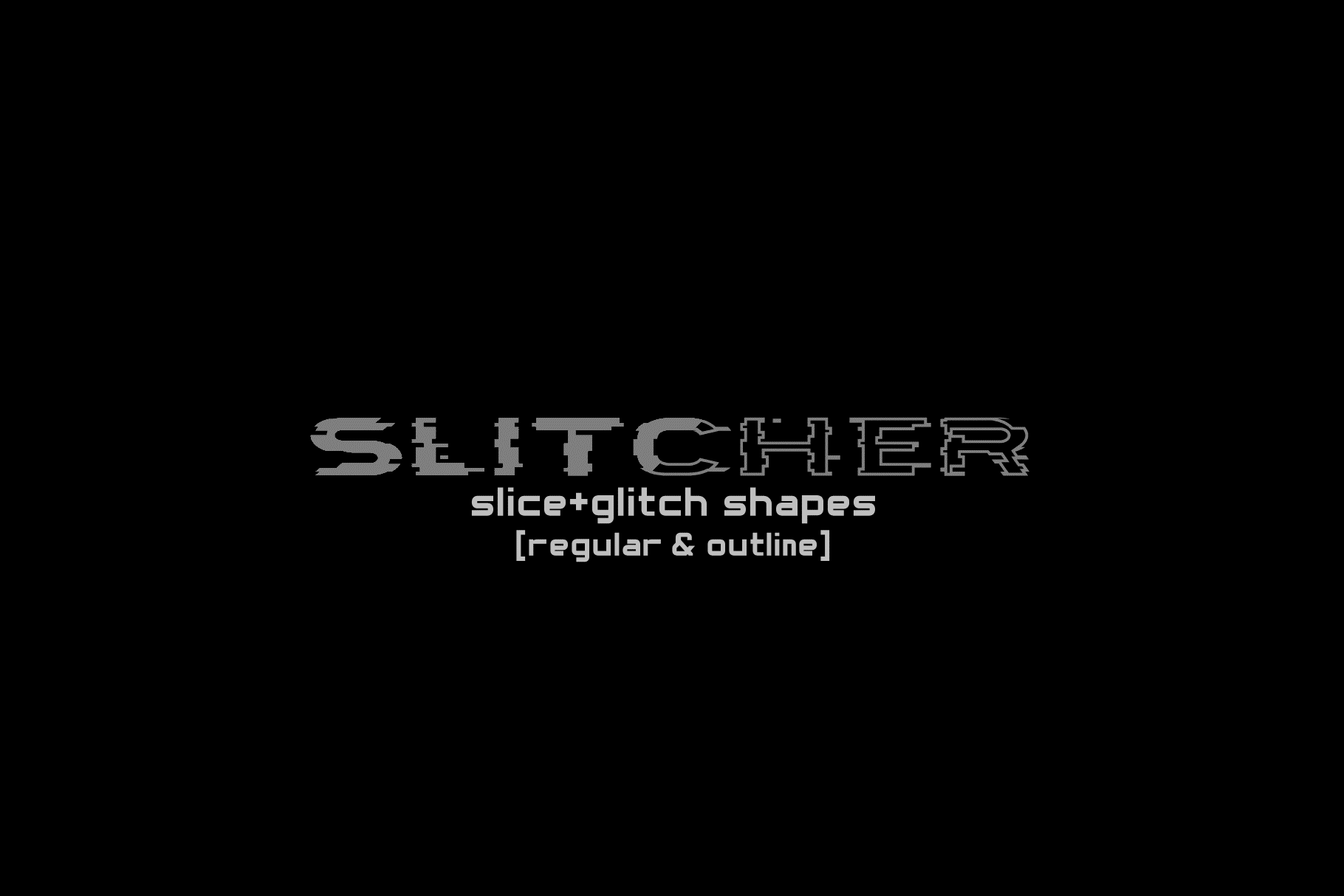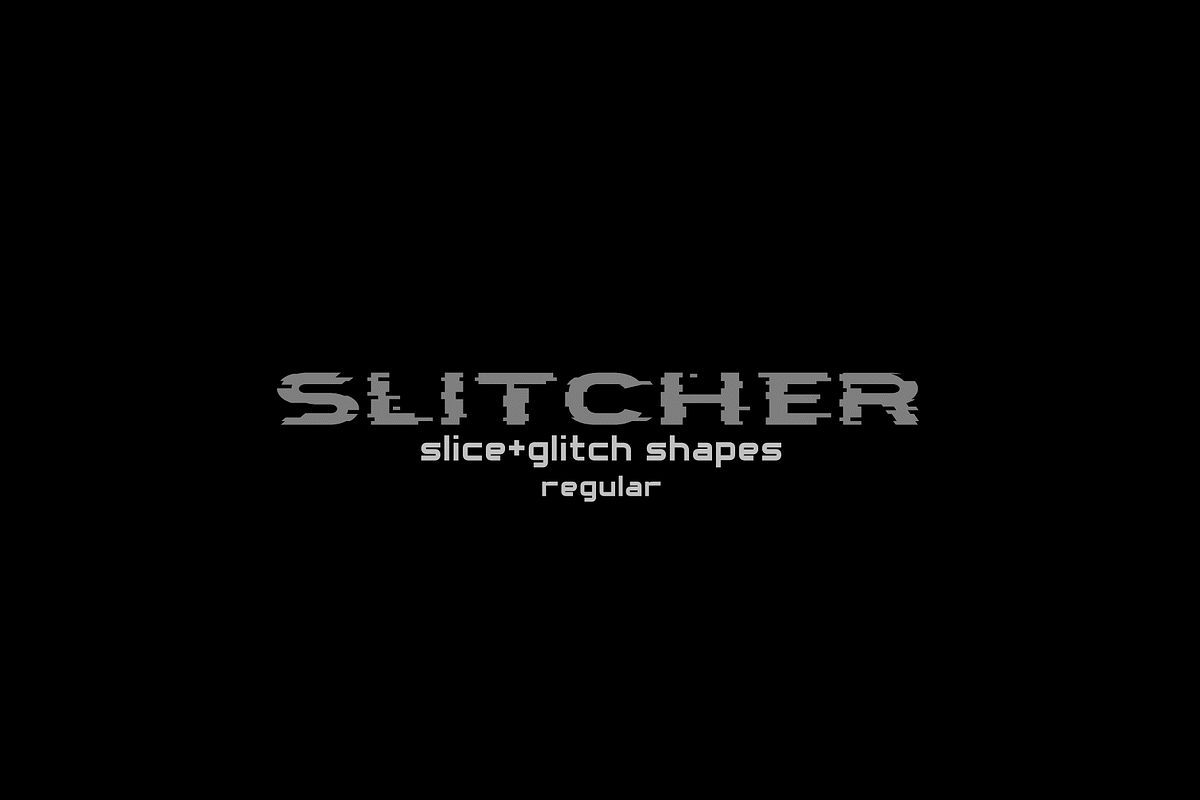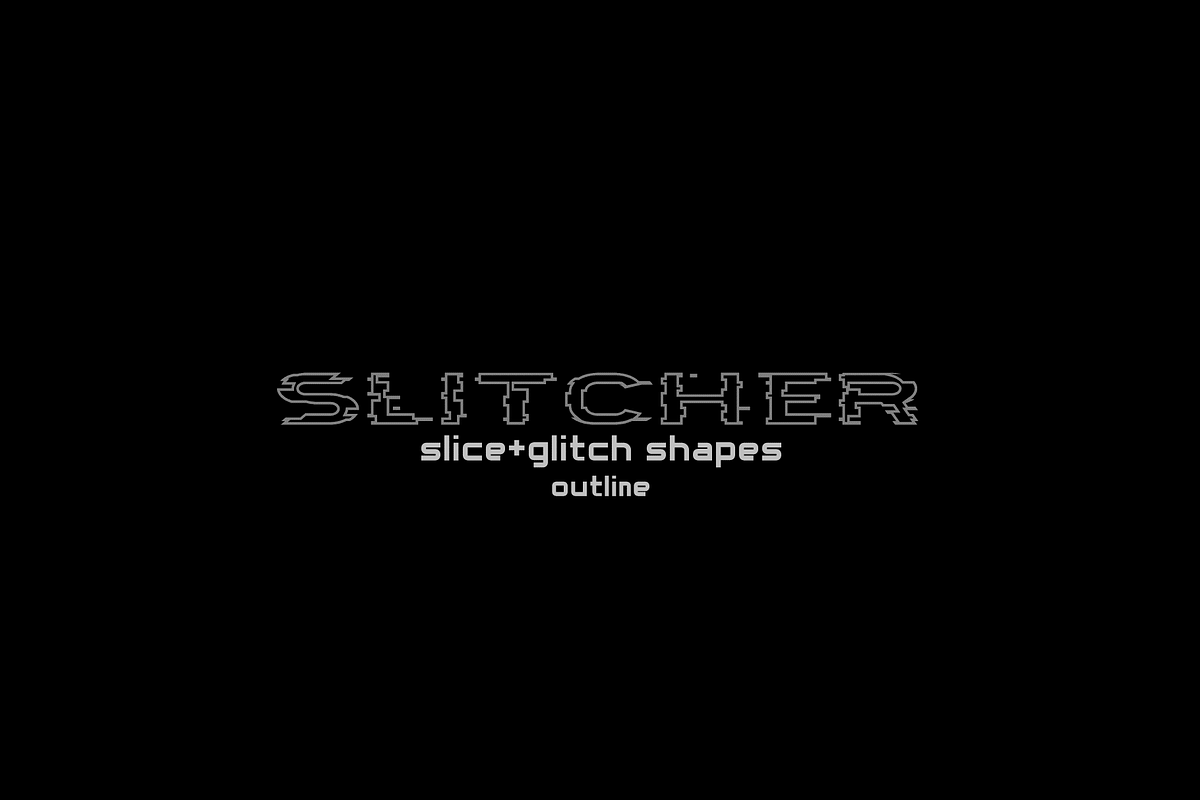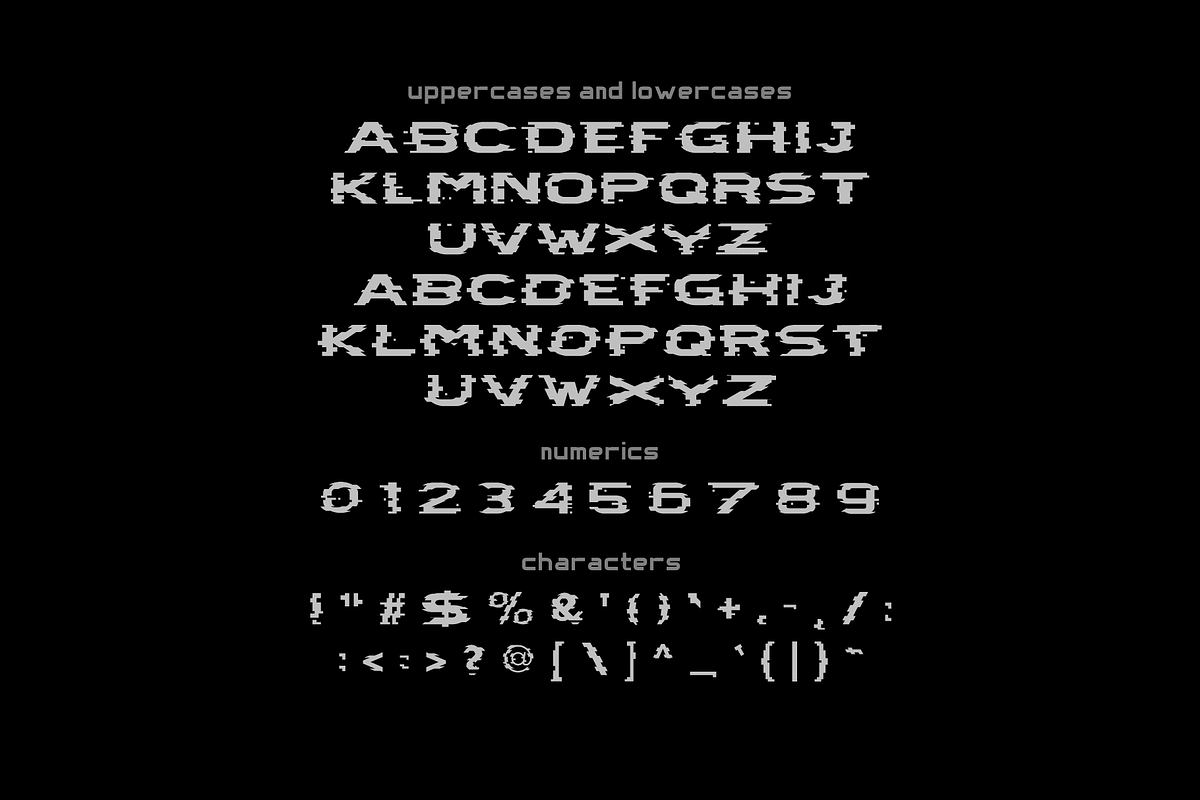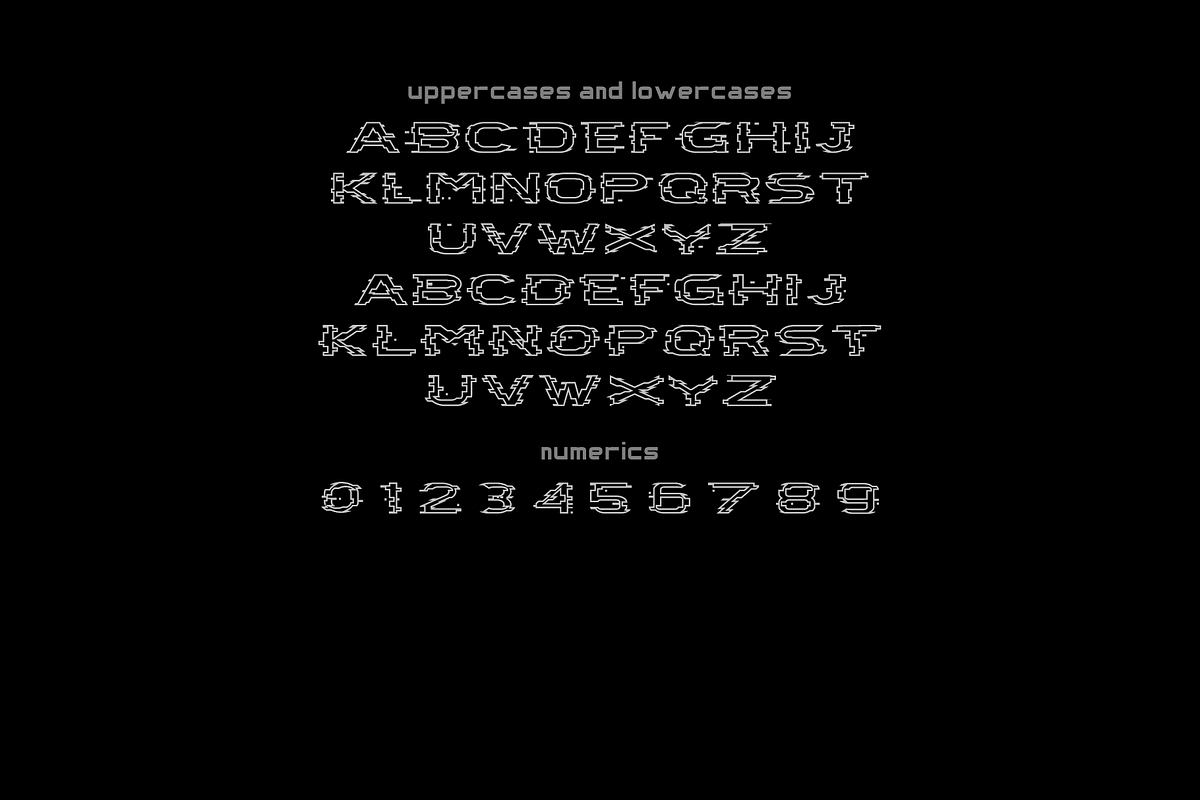
slitcher font
Slitcher fonts refer to distinct styles of typography that are often used in digital and modern design, particularly in contexts related to technology, cyberpunk, or avant-garde aesthetics. Slitcher fonts is conbination of slice and glitch characteristics.
Here's an overview of each style: Slice Font Characteristics: A sliced font typically features characters that appear as if they have been cut or sliced in a strategic manner. This slicing effect can create a visually striking and dynamic appearance. Usage: Slice fonts are often employed in designs where a sense of fragmentation or deconstruction is desired. They can convey a futuristic or edgy aesthetic and are commonly used in technology-related graphics or artistic projects.
Glitch Font Characteristics: Glitch fonts are designed to mimic the visual artifacts associated with glitches or digital errors. Characters may appear distorted, pixelated, or fragmented, resembling the result of electronic interference or software malfunctions. Usage: Glitch fonts are popular in designs that aim to evoke a sense of technological instability, cyberpunk atmospheres, or digital chaos. They are frequently used in creative projects, music covers, and visuals where a glitchy or experimental look is sought.